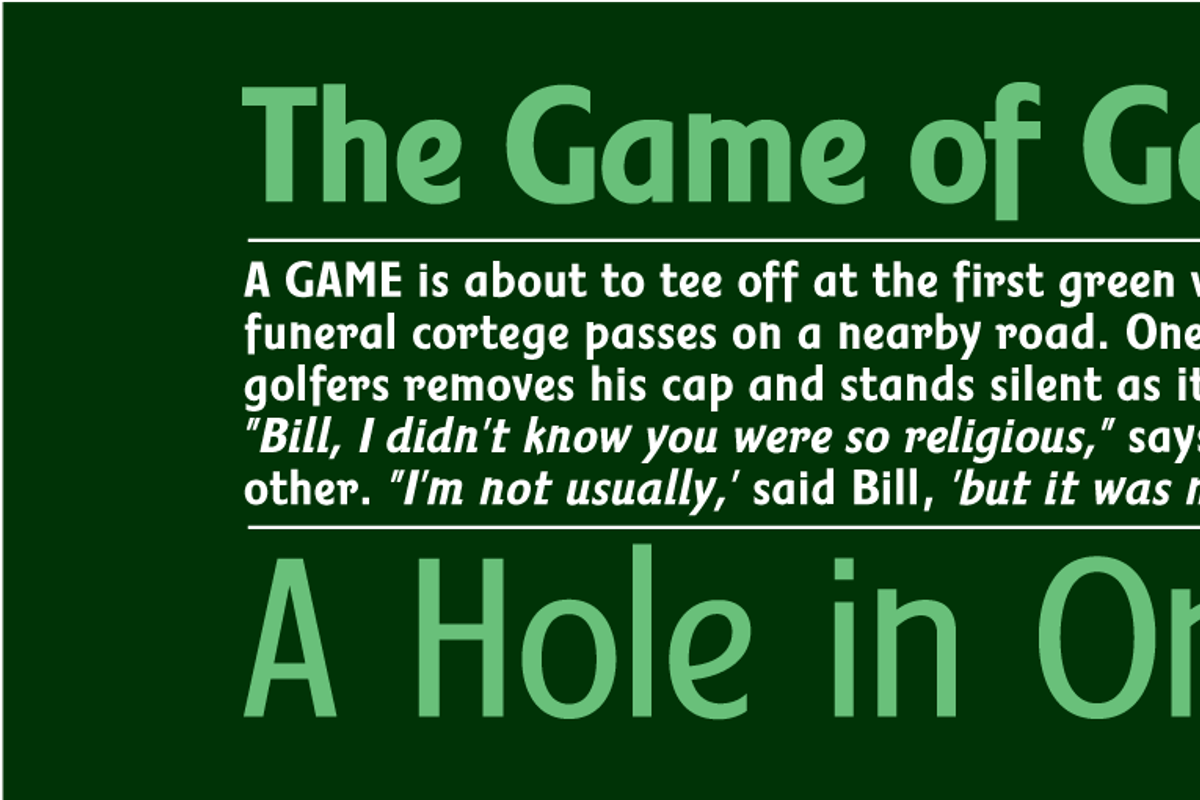
Fairway
Fairway is a humanist sans-serif typeface designed by Alan Meeks. It features a casual and quirky aesthetic with subtle movement at the top of the x-height line. This versatility allows it to be used effectively for both headlines and body text.